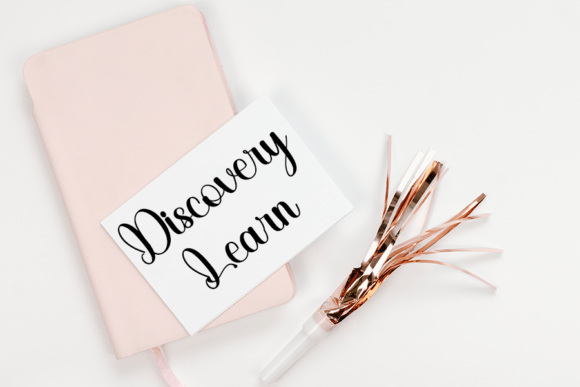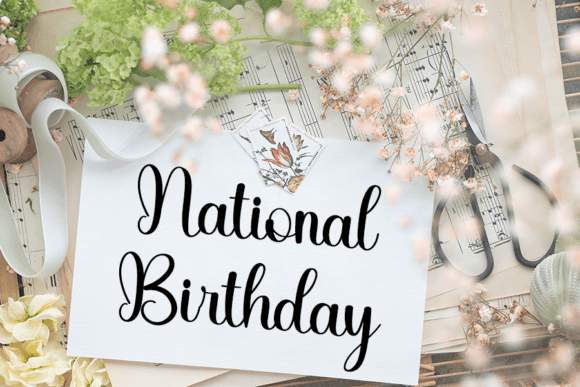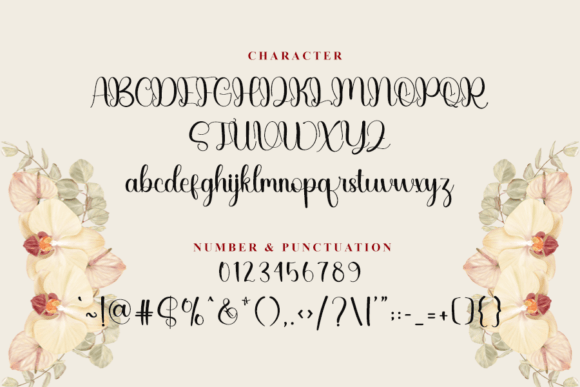
Ceramic Font
About Ceramic Font
Ceramic is a trendy handwritten font with a contemporary atmosphere and impeccable form, inspired by a timeless classic calligraphy. It will add elegance and class to any of your design projects.